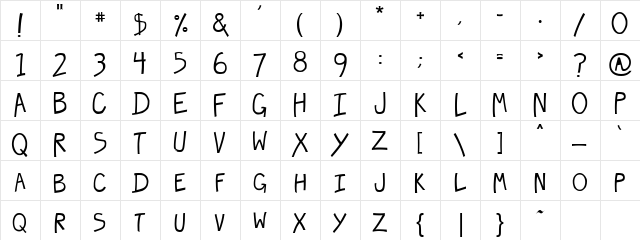
Hecubus Regular
Design Context for Hecubus Typeface
Hecubus is a composed and adaptable typeface that performs quietly and consistently across a wide range of design contexts.